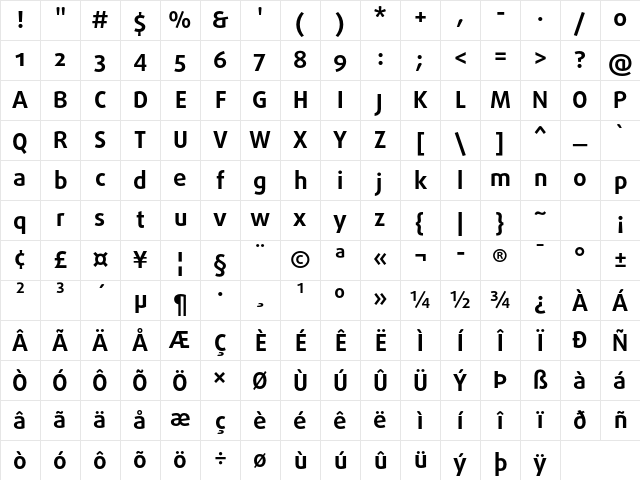
Complete DaxlinePro Bold glyph index. Displaying only characters natively supported by DaxlinePro Bold font.
DaxlinePro is a composed and adaptable typeface that performs quietly and consistently across a wide range of design contexts. Its bold stroke weight gives it real presence on the page.